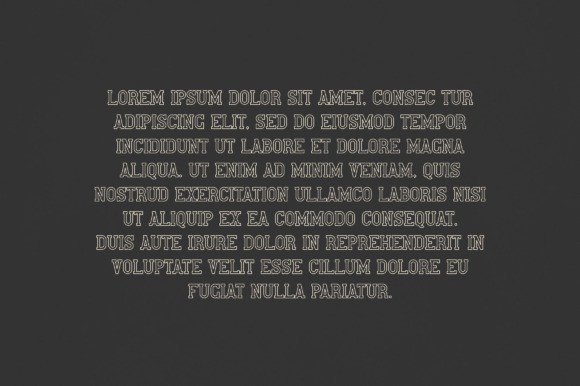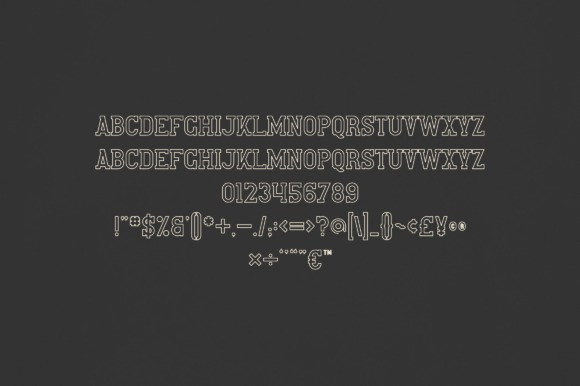
Tessa Font
Tessa Font is an elegant and versatile display font that will make your typography truly unique! It will enchant every logo, branding, headline, or plain text!
Classification: Display Fonts, Slab Serif Fonts